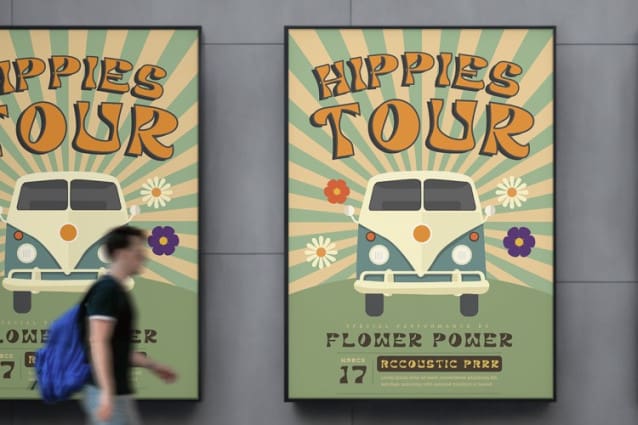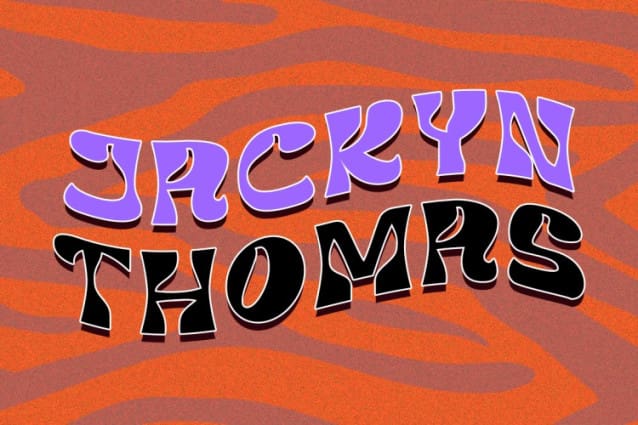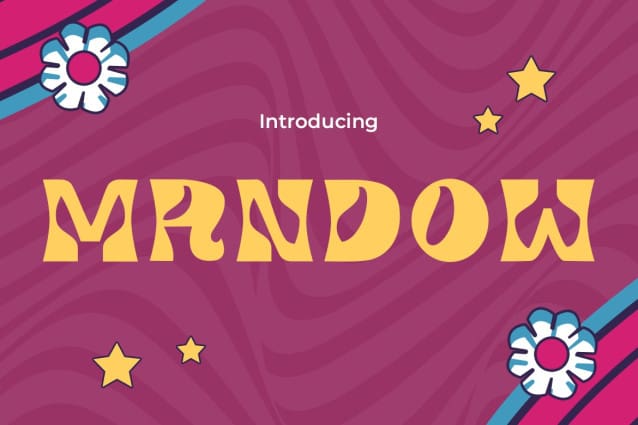
Mandow Display Font
Mandow Display Font, is a captivating script font that dances between playful and sophisticated. Its whimsical curves and bouncy letters exude a friendly charm, perfect for adding a personal touch to your designs. Whether you’re crafting heartwarming invitations, creating eye-catching posters, or simply expressing yourself in quotes, MANDOW will leave a lasting impression.
From playful school projects to elegant branding materials, MANDOW’s versatility shines. Use it to add a touch of whimsy to your blog posts, personalize packaging with a unique flair, or craft stunning event invitations that truly stand out. So, let your creativity flow and let MANDOW Display amplify your message in style!